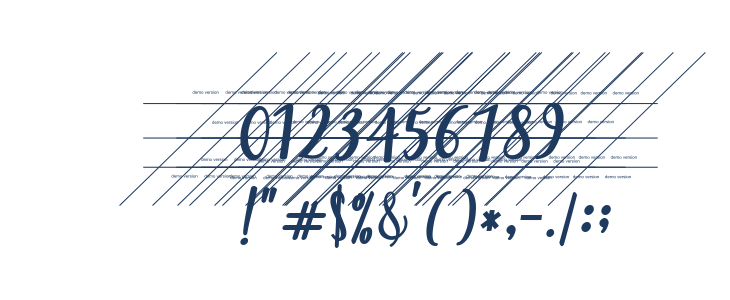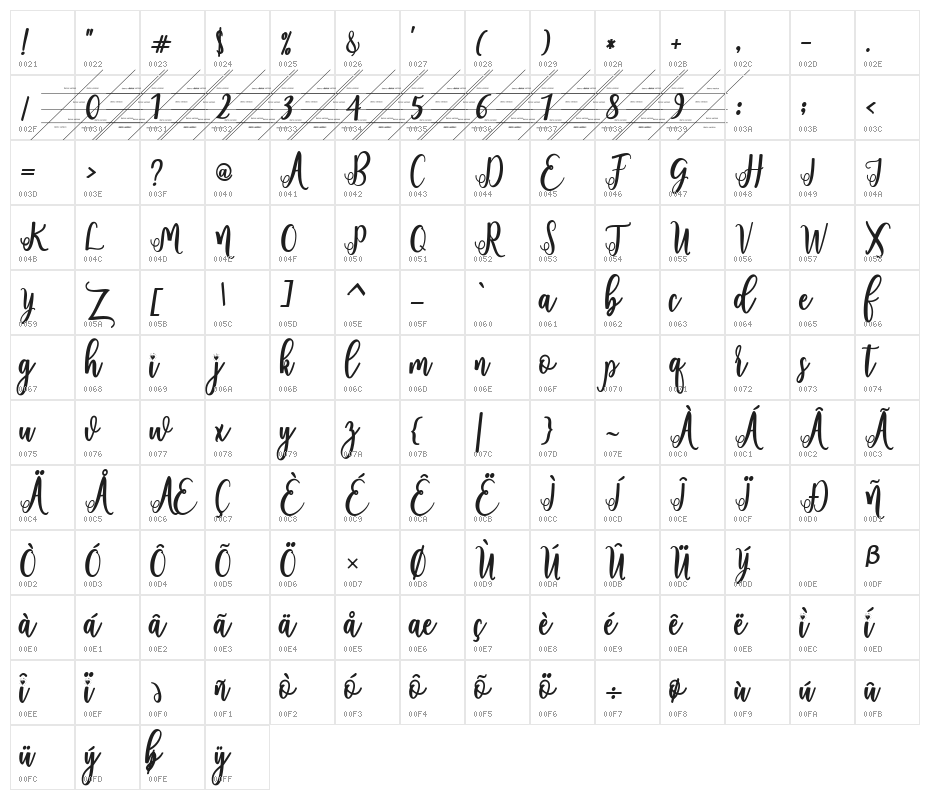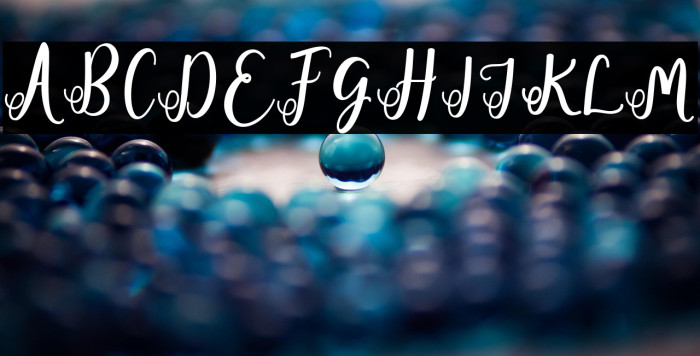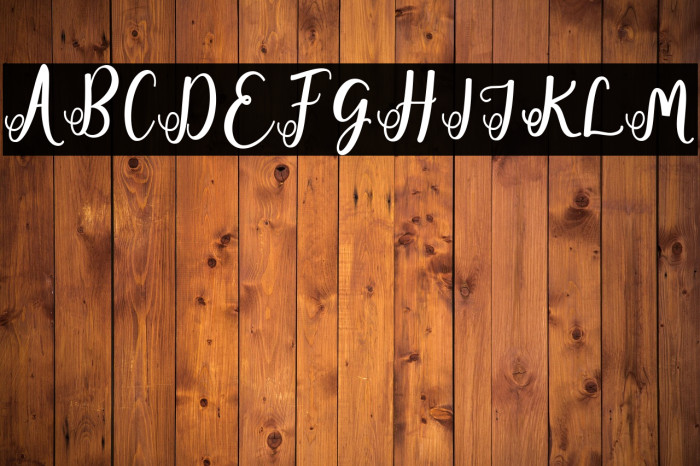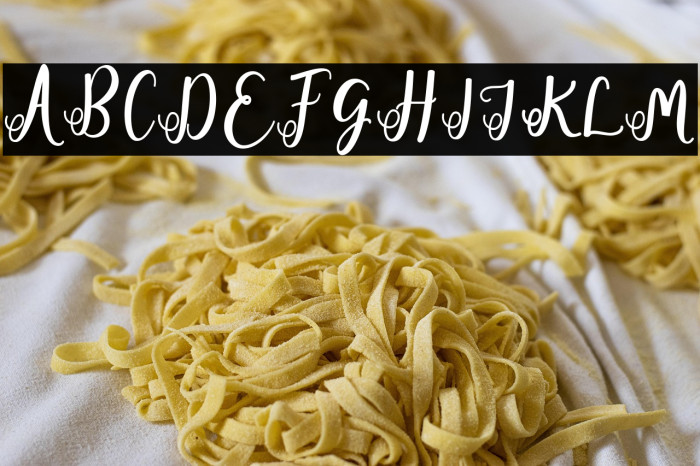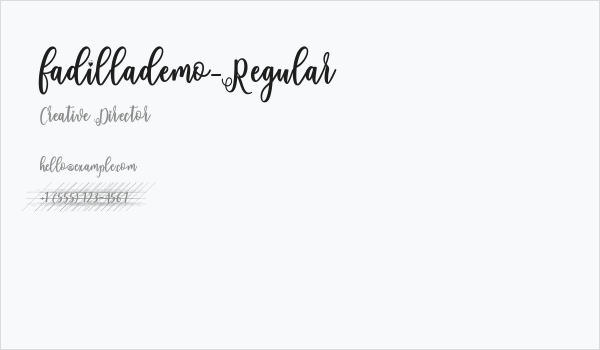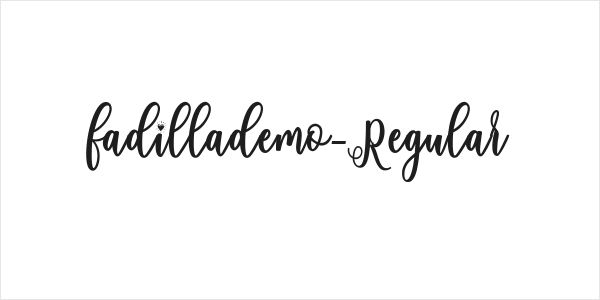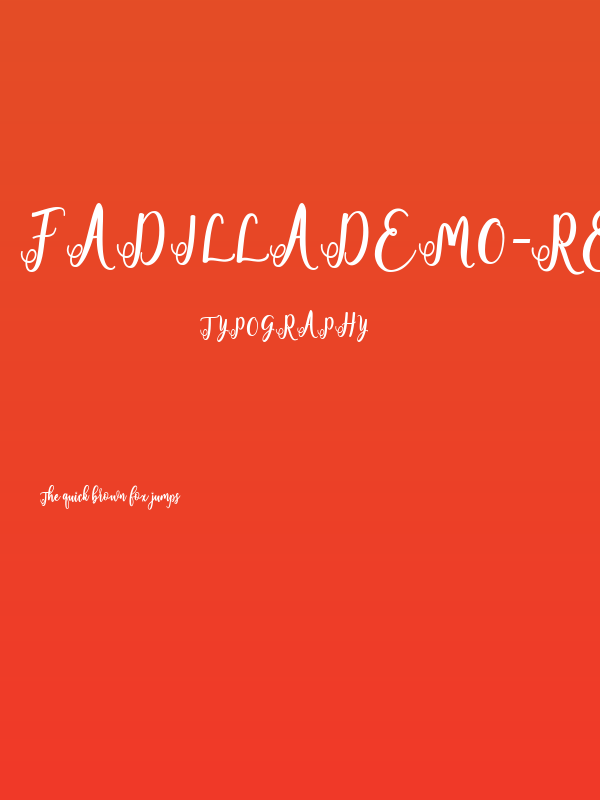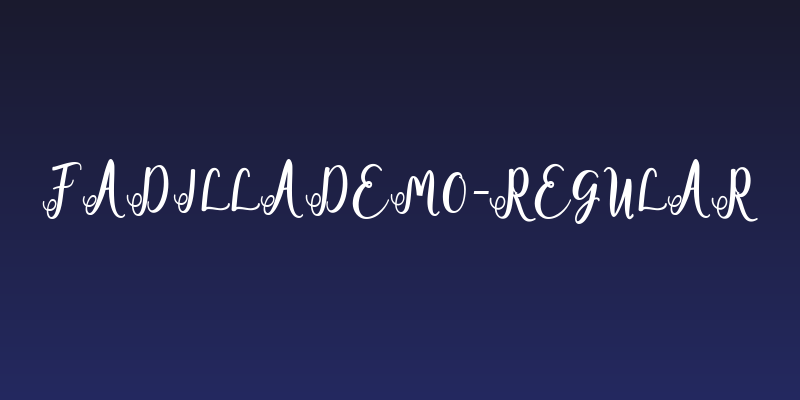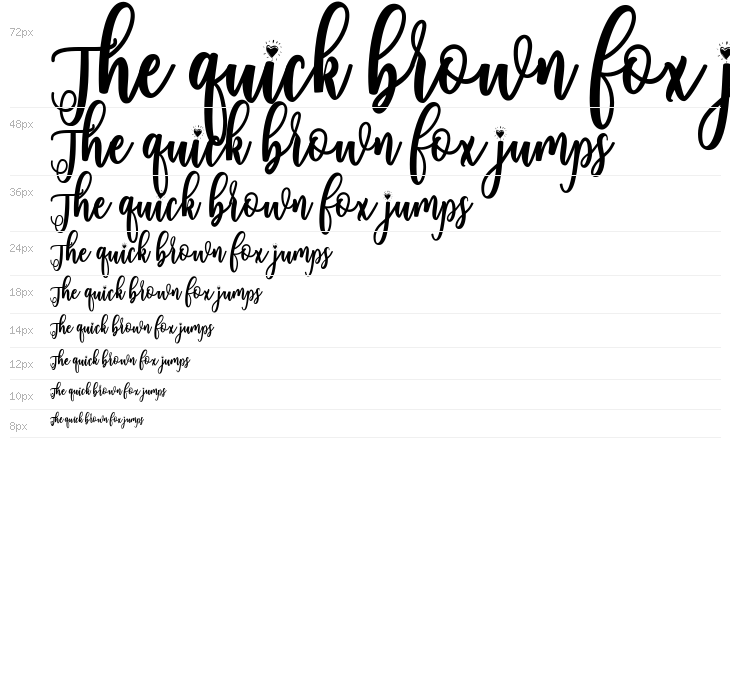
fadillademo-Regular Font
fadillademo-Regular Description
This font features a whimsical and elegant script style with decorative swirls and loops that add a playful touch to each character. The uppercase letters are particularly ornate, with flourishes that extend beyond the baseline, while the lowercase letters maintain a more consistent flow. The numbers and special characters are designed to match the overall aesthetic, ensuring a cohesive look. This font is ideal for projects that require a touch of elegance and creativity, such as invitations, greeting cards, and branding materials.
Use CaseLogos, Invitations, Decorative text
Proposed ProjectsIdeal for wedding invitations, greeting cards, branding, and decorative signage.